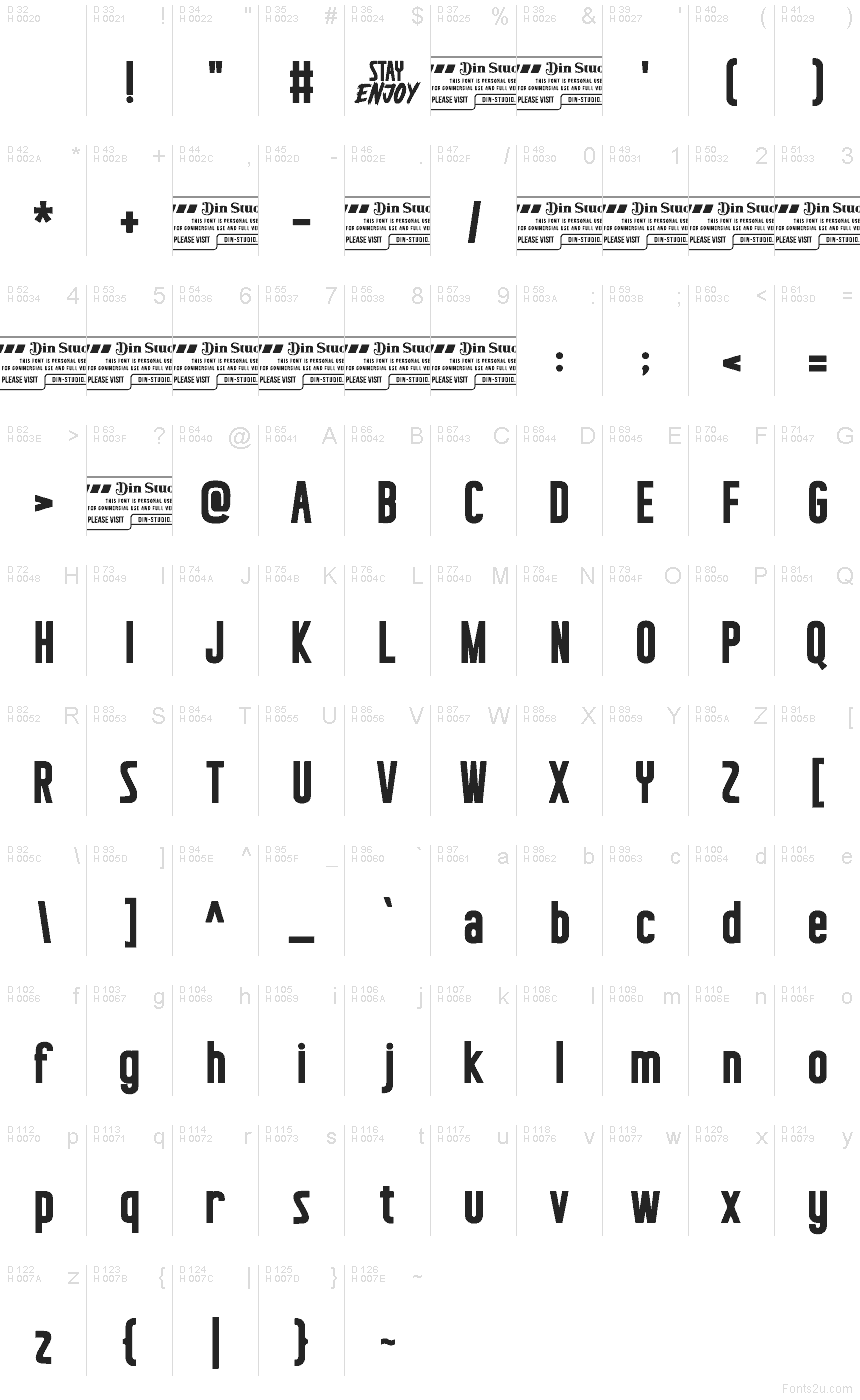
Stay Enjoy Personal Use Sans
Stay Enjoy font designed by Din Studio combines contemporary design elements with a traditional approach. This free sans serif font has noticeable mid-century modern influences characterized by geometric shapes and clean lines. Functionality and streamlined appearances are meant to take charge over decorative components, which results in both an effective and attractive appearance.
Usability for Stay Enjoy varies from different branding projects, typography posters, envelop letters, invitations, magazines covers design, social media headers and more. Use its visual features to also build an appealing website for your business or blog.